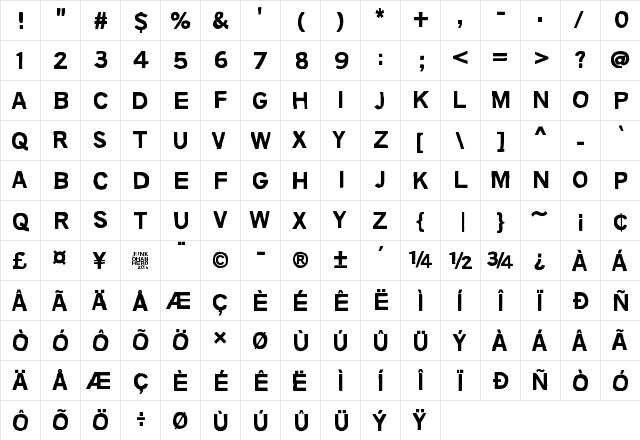
Animals are like people Regular
| Foundry | junkohanhero / junkohanhero.com |
| Designer | junkohanhero |
Design Context for Animals are like people Typeface
Animals are like people offers clean, dependable letterforms without strong stylistic allegiance, making it a practical choice for designers who need flexibility.